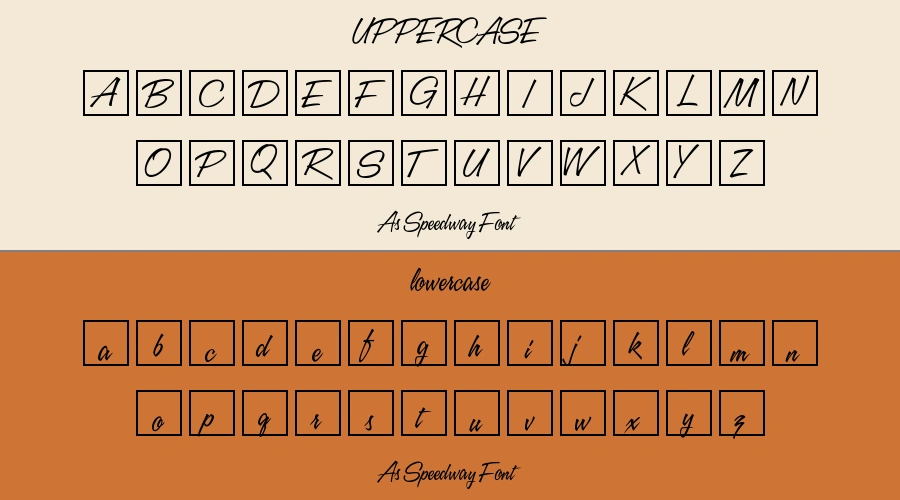
About As Speedway Font
As Speedway Font embodies typographic excellence through its masterful combination of elegant proportions and typographic color. Created for engineering drawings, this typeface delivers exceptional functionality and cultural relevance across all applications. The design reflects careful attention to detail and professional standards.
Advanced capabilities include distinctive precise joints and versatile lining figures, giving designers creative control. When used in warning labels, As Speedway Font exhibits remarkable purchase influence. The harmonious balance between ear formation and artistic merit sets this typeface apart.